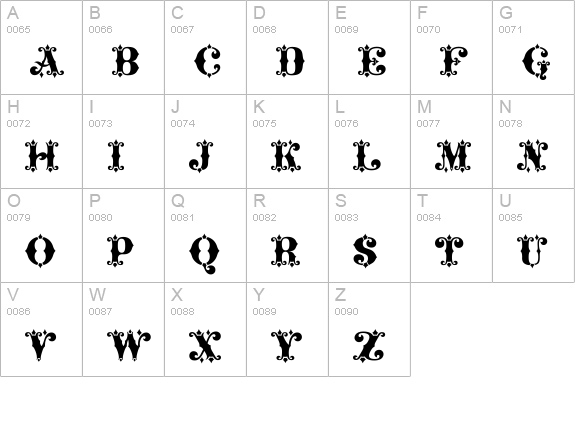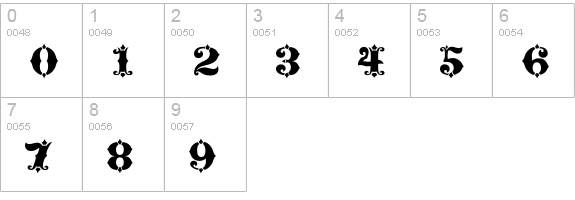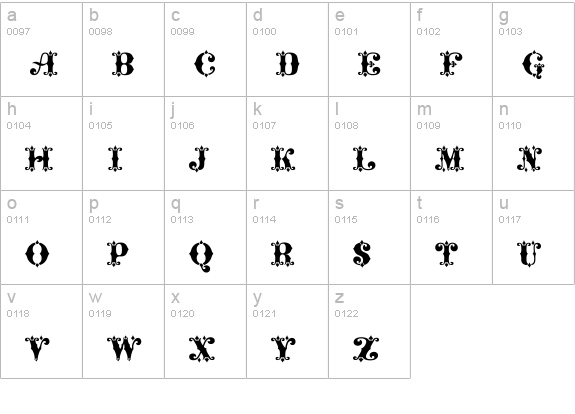
Maverick's Luck font is a stunning and dynamic typeface that exudes charm and sophistication. Its unique design combines modern flair with a touch of vintage elegance, making it perfect for a wide range of design projects. The bold and striking letterforms of Maverick's Luck font are sure to make your text stand out and leave a lasting impression on your audience. What's even better is that Maverick's Luck font is available for free download at FontsMarket.com. You can easily access this beautiful font and use it in your designs without any cost. Add a touch of style and personality to your projects with Maverick's Luck font and unleash your creative potential. Download it now and let your creativity soar!